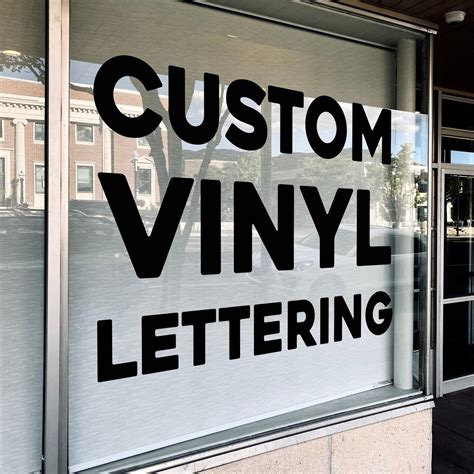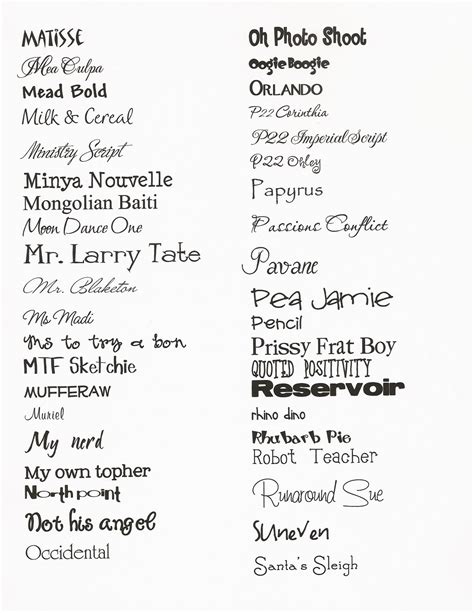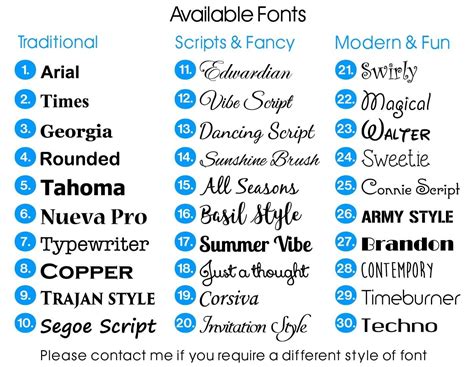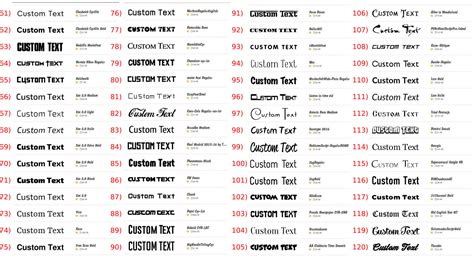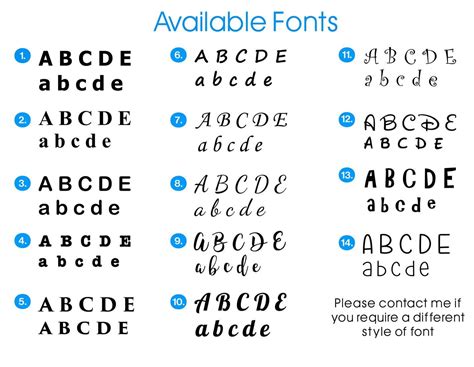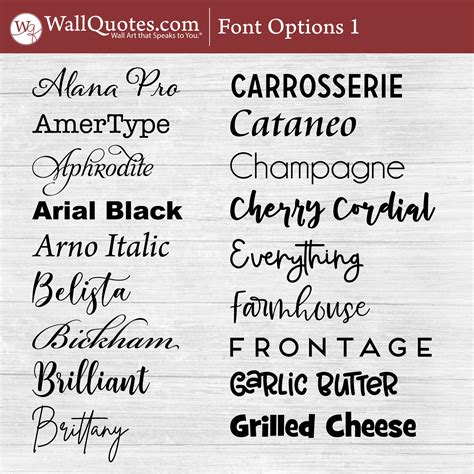
Choosing the rightfield vinyl lettering fount is a foundational step in any successful signage or tradition decal project. Whether you are crafting personalized wall art, professional storefront graphics, or vehicle branding, the composition you choose shape the overall impact and readability of your designing. While it might be tempting to pick the initiative baptistery that catches your eye, translate the interplay between cut-ability, strength, and esthetical intent is important for achieving high-quality results. Professional crafter and sign-makers oft prioritize light lines and simple geometry, as these elements directly influence how expeditiously a vinyl cut machine treat the digital file and how easily the material can be weed later.
The Science of Choosing Vinyl Lettering
When selecting a face for vinyl projects, you must take the physical constraints of the textile. Vinyl cutting involves a physical blade dragging across a pressure-sensitive surface; therefore, baptistry with excessively slender hairline or intricate, cosmetic flourish can become a nightmare during the weeding process. Opting for cut-friendly designs guarantee a sander product workflow.
Key Factors for Readability
- Stroke Width: Fonts with reproducible stroke widths are generally easier to cut and utilise.
- Tracking and Kerning: Ensure that the letter do not overlap in a way that create cutting hard.
- Complexity: Avoid "distressed" or "grunge" font unless you are prepared for time-consuming weeding.
- Discernability: Consider the distance from which the mark will be viewed. High-contrast sans-serif fount are commonly good for distant reading.
Top Font Categories for Vinyl Cutting
Different labor ask different moods. Categorize your font choices can aid streamline the design summons and see your substance aligns with your make identity or aesthetic vision.
| Category | Best For | Famed Traits |
| Sans-Serif | Storefronts & Vehicles | Modern, clean, highly legible |
| Seriph | Formal Signage | Hellenic, definitive, professional |
| Script | Custom Decals & Invitations | Elegant, personal, ornamental |
| Display | Case & Card | Bold, originative, attention-grabbing |
The Dominance of Sans-Serif
Sans-serif pick rest the gold standard for vinyl applications. Fonts such as Helvetica, Futura, and Montserrat proffer a geometric purity that scales incredibly easily. When act with small vinyl letter, these typeface stay sharp even at reduced size, create them perfect for label, bottleful branding, and window info stickers.
💡 Billet: When using hand baptistry, always weld your letters together in your pattern package before mail the file to the carver to ensure the machine treats the textbook as one continuous part.
Preparing Files for Optimal Cutting
Select the right font is alone half the engagement; the digital planning is where true precision is born. Erst you have opt your typeface, you must assure the vector paths are unclouded. Overlapping node or secret anchor point can cause your machine to conk or bust the vinyl during the sheer summons.
Step-by-Step Optimization
- Convert to Scheme: Always convert your schoolbook to scheme (or itinerary) to ensure the font info is embedded in the file.
- Check for Overlaps: Use the "Pathfinder" or "Weld" puppet to merge overlapping letters into a single object.
- Simplify Paths: Cut the figure of anchor points to make the path smoother for the slip blade.
- Check Minimum Size: Tryout a pocket-sized sampling cut before commit to a big production run to see if the chosen font holds up at the target scale.
Choose the right typeface is an indispensable exercise in balancing aesthetics with proficient functionality. By focusing on the structural integrity of the characters and preparing your files with precision, you can control that your vinyl undertaking are not only visually daze but also lasting and easygoing to apply. Guide the time to test your typeface choices and optimizing your vector will ultimately save you time, reduce cloth dissipation, and improve the professional quality of every usage decal or sign you create.